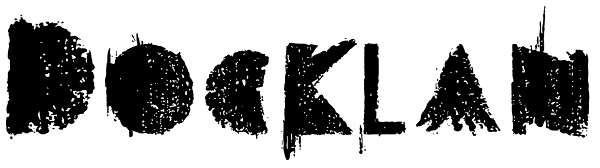
Docklan
The display font Docklan arose from experiments of candle-grease and black ink. Book covers, music festivals, wedding invitations or just an essay in school – Docklan will allow you to make a statement in any setting! The lowercases are miniatures...